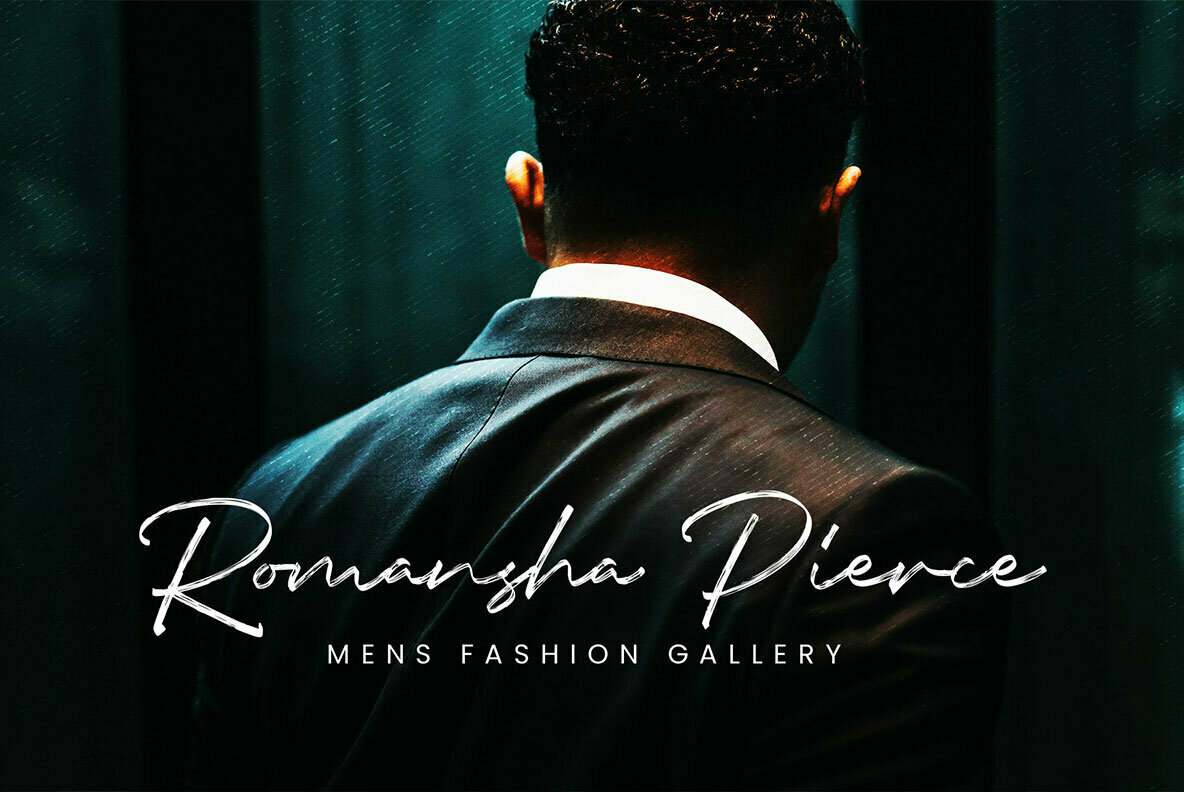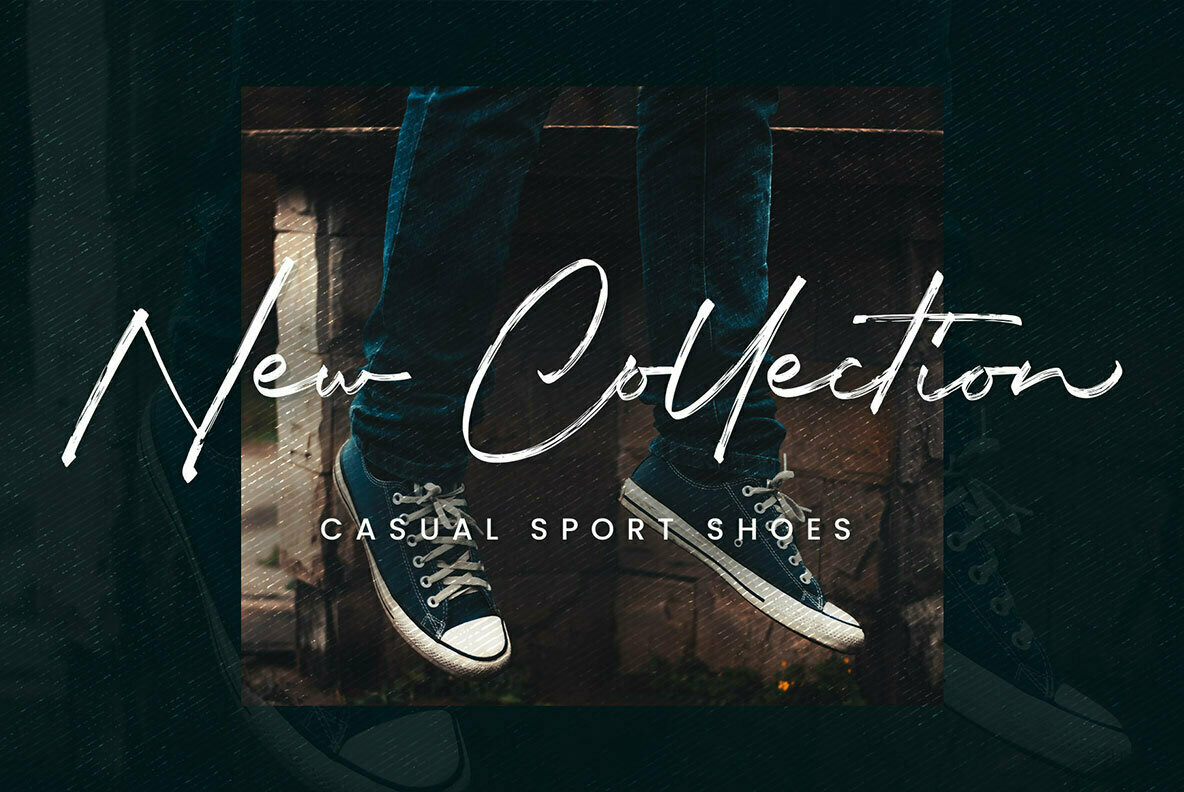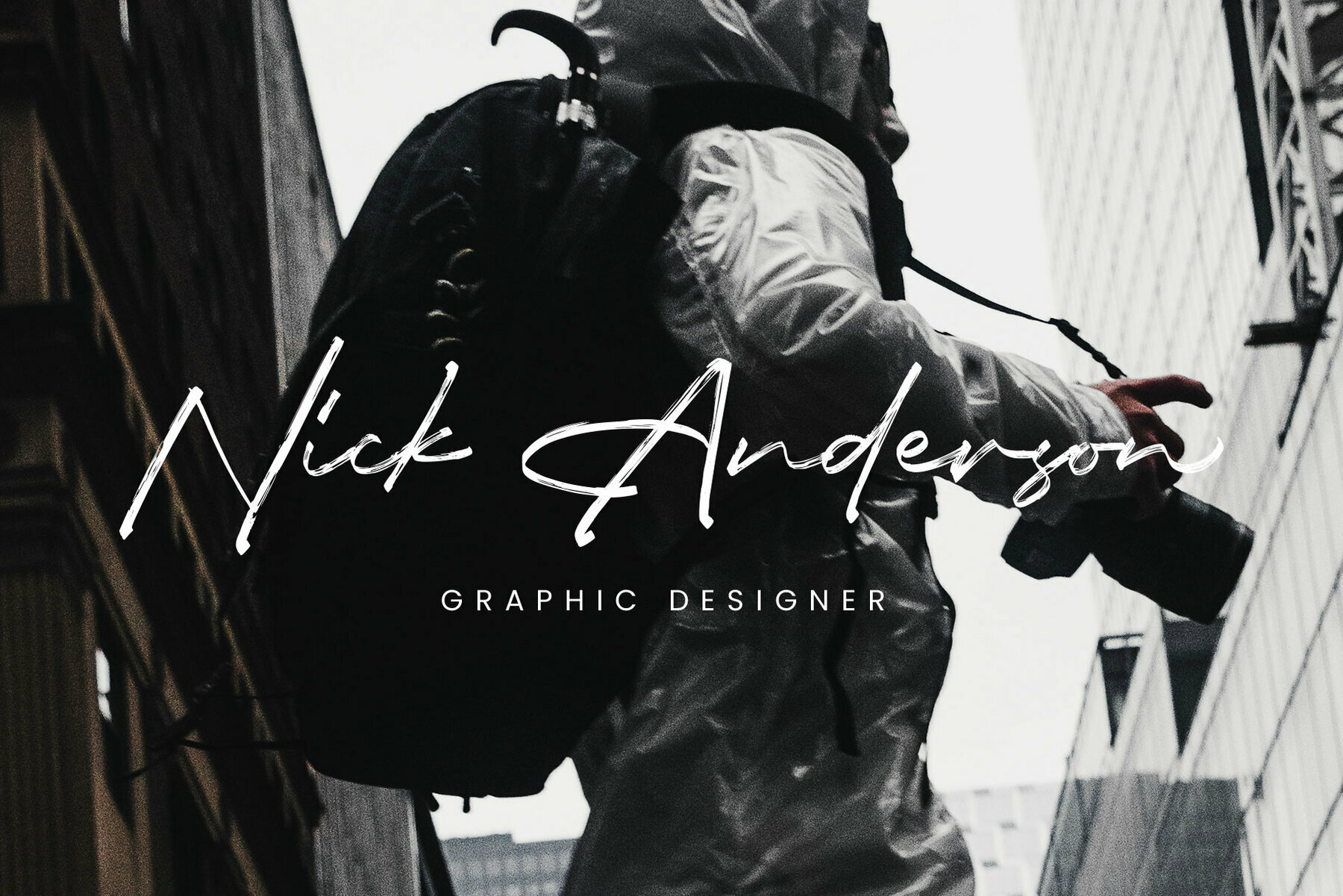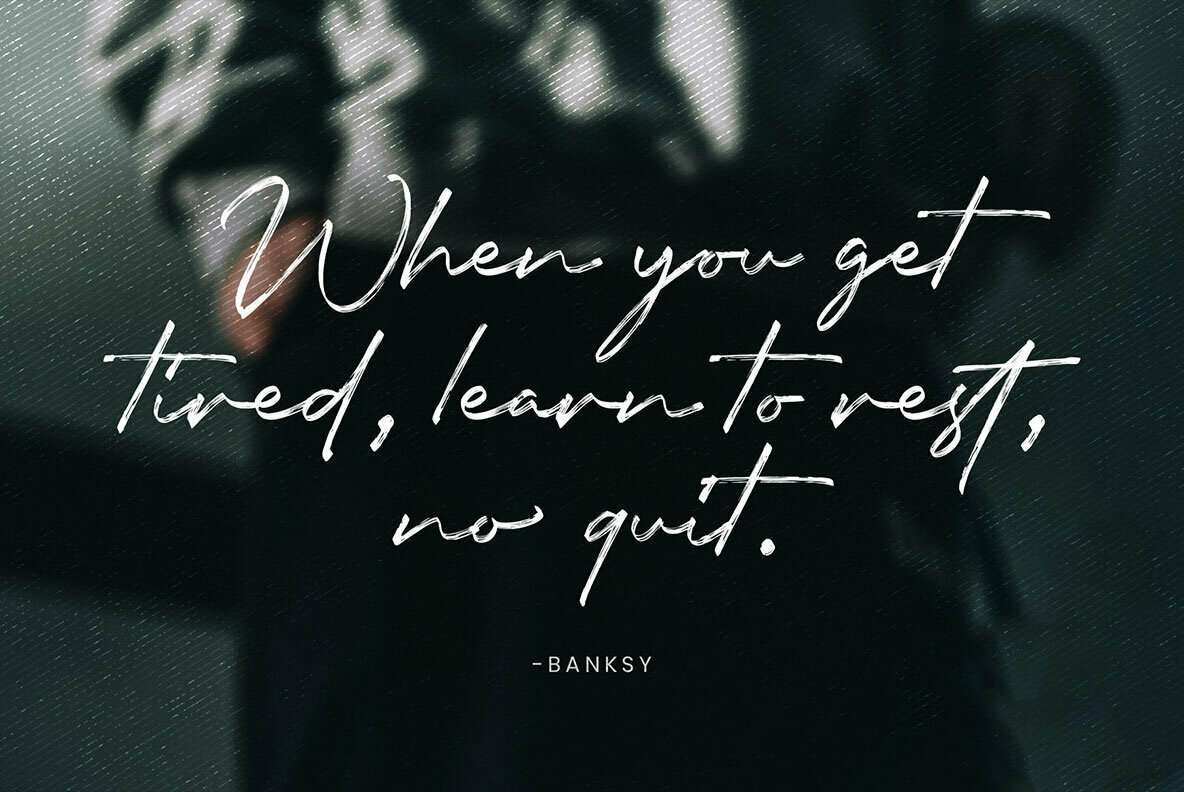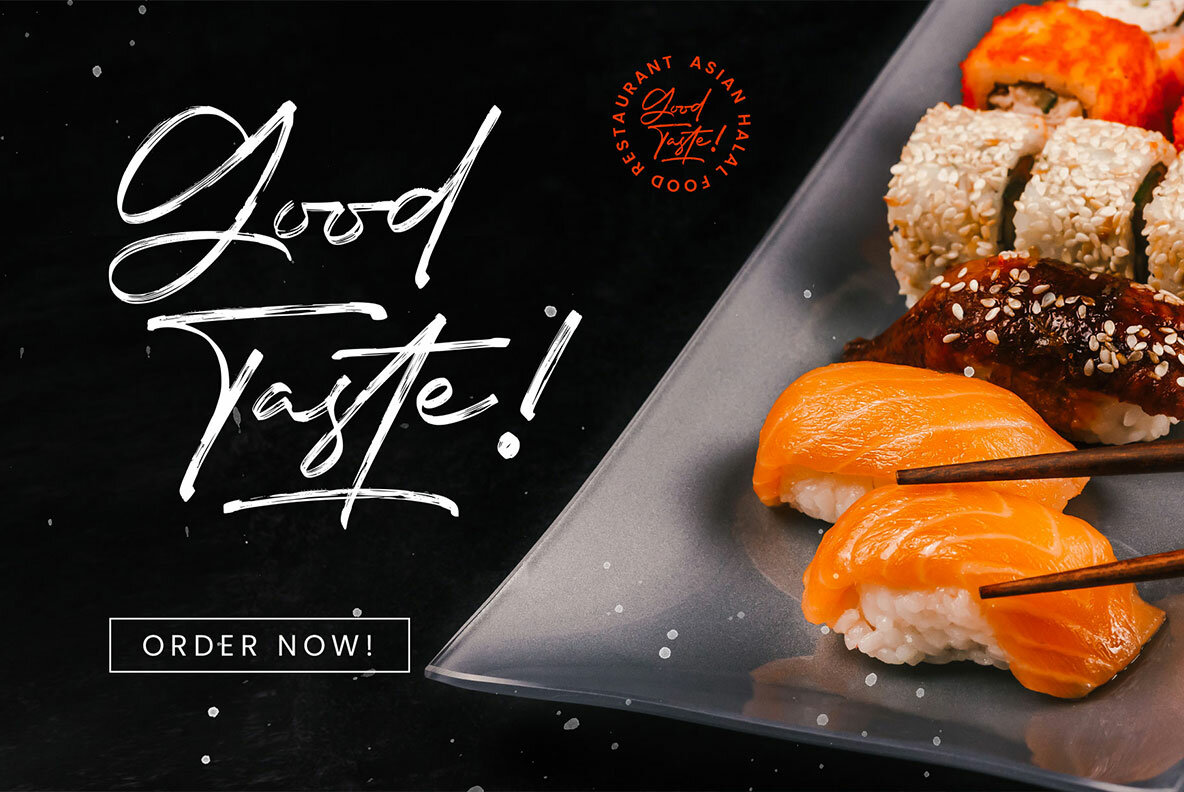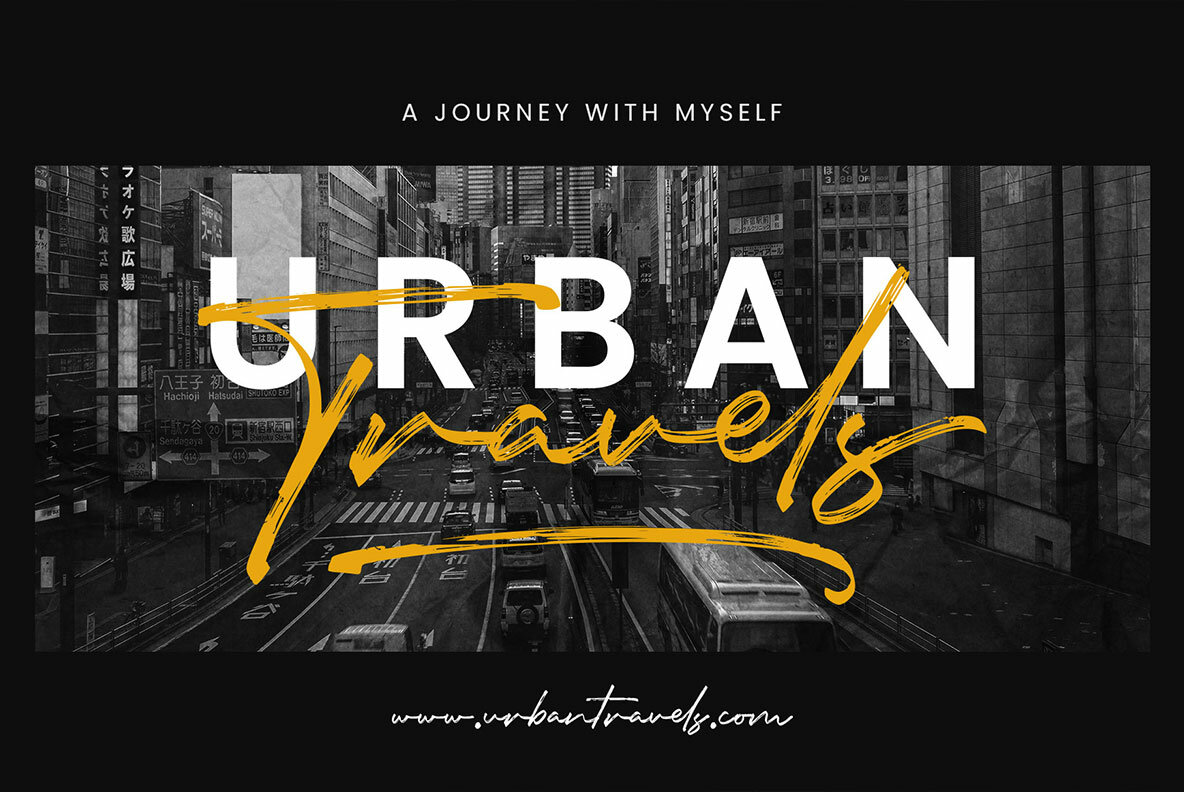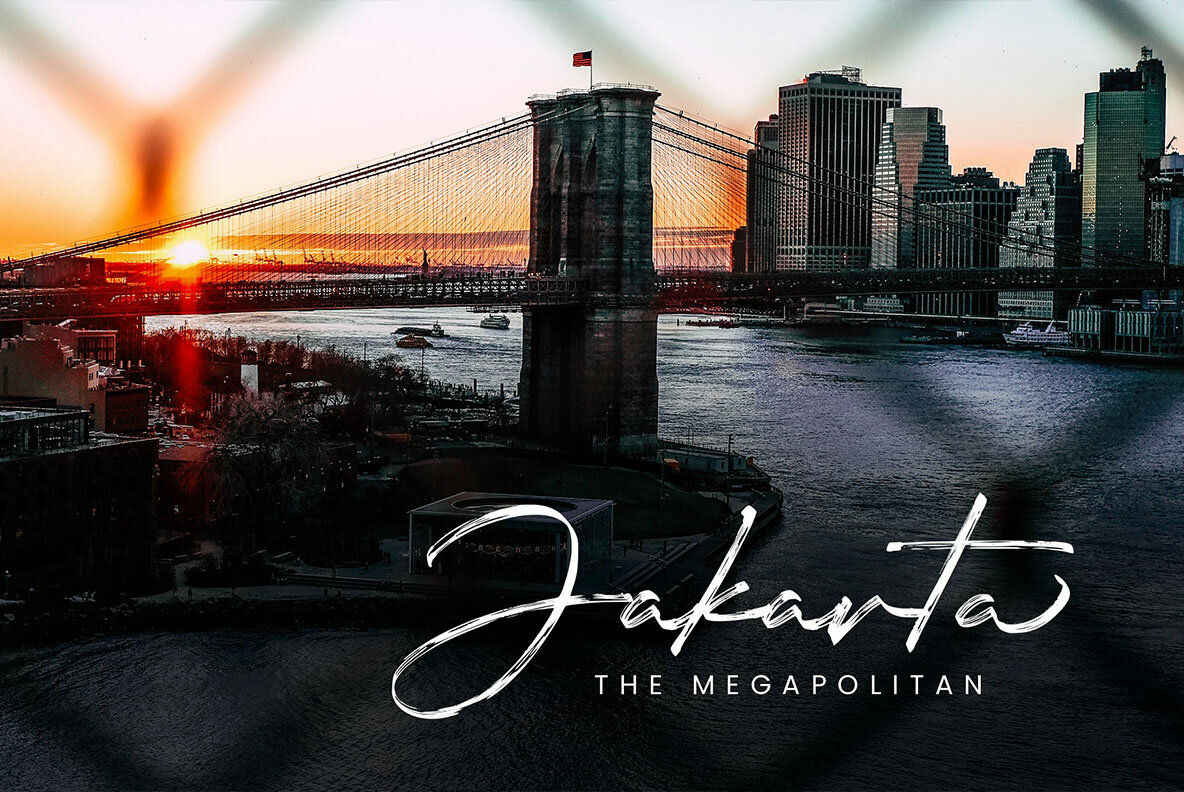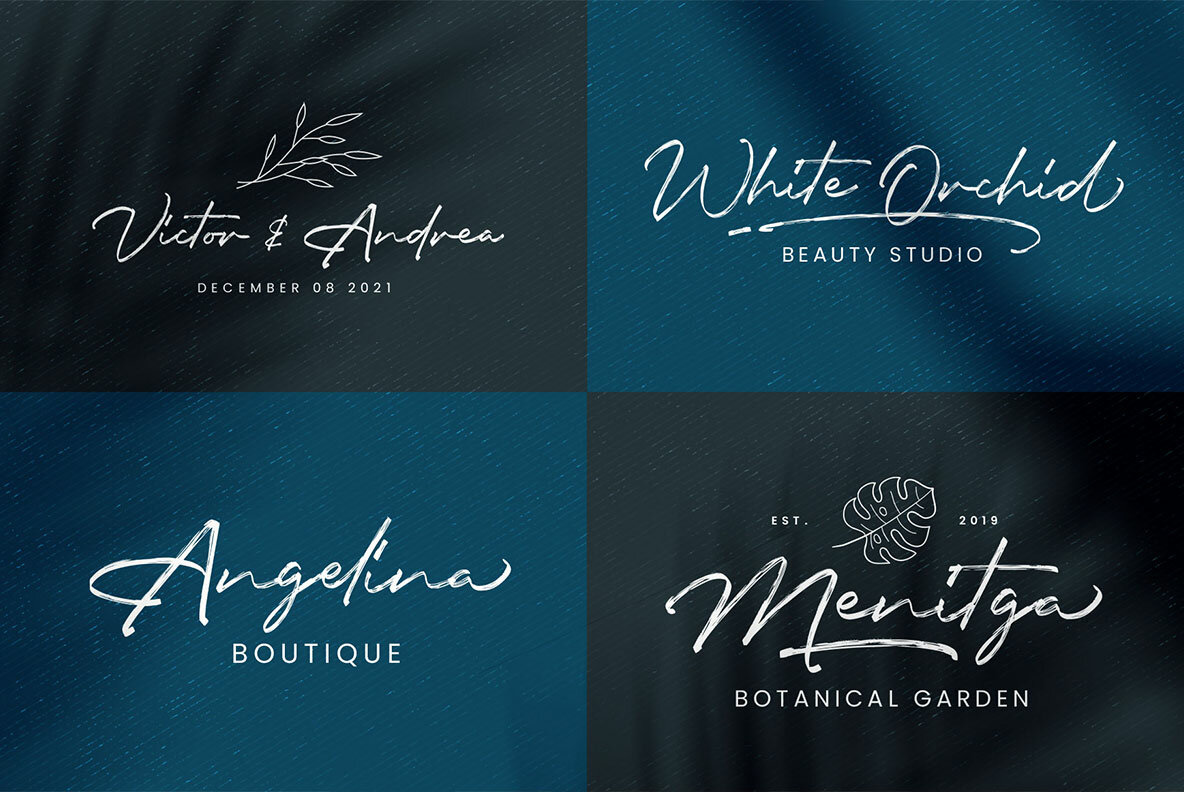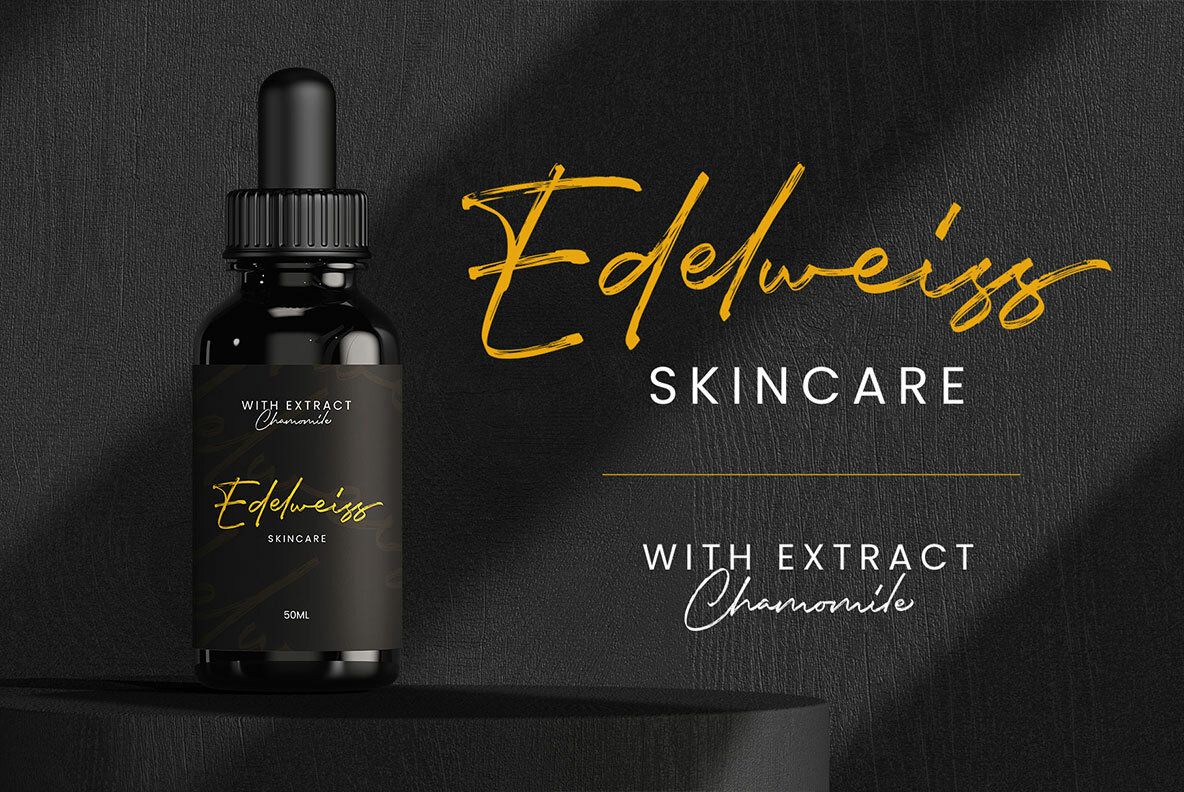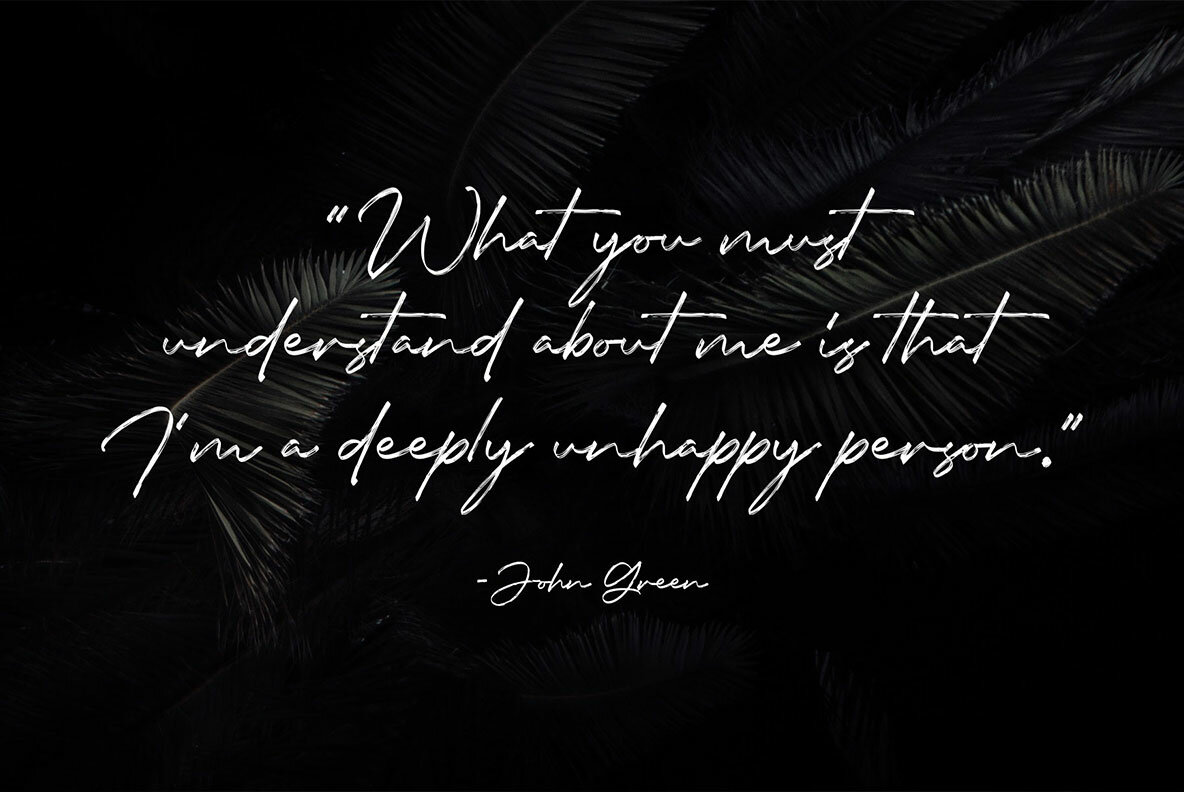
Insiders Font
Insiders
Insiders offers a dynamic blend of handwriting aesthetics and brush-based design, making it an excellent tool for any creative endeavor. Capturing both casual charm and refined elegance, this font draws inspiration from dry brush lettering and the fluid curves typical of signature logos. Features: Insiders is your ideal choice for crafting designs that resonate with authenticity and vigor.Insiders: Signature Brush Font with Energetic Flair